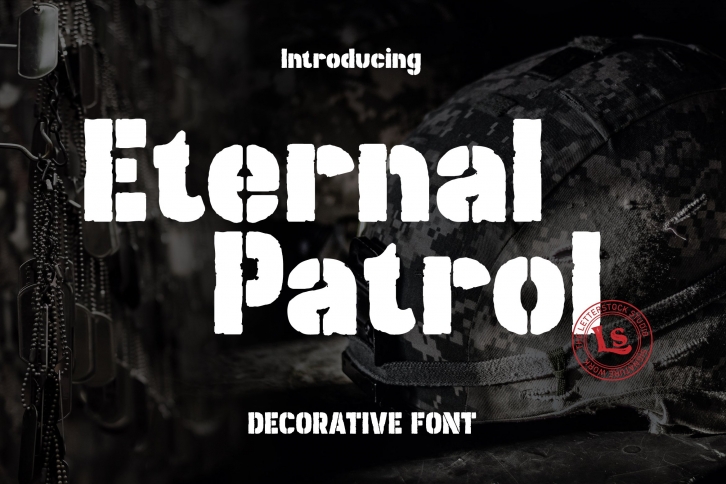
Eternal patrol is a beautiful font that was designed by Gumacreative. It's a great choice for designers and creatives who need such a font. It was released on May 3, 2021 and the file size is 21.21 MB. Eternal patrol may give a more youthful, expressive and casual look to your project. It is a very beautiful, refined, elegant, and high-quality font.